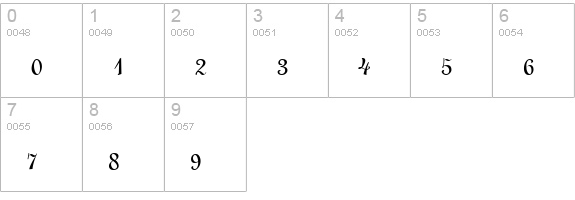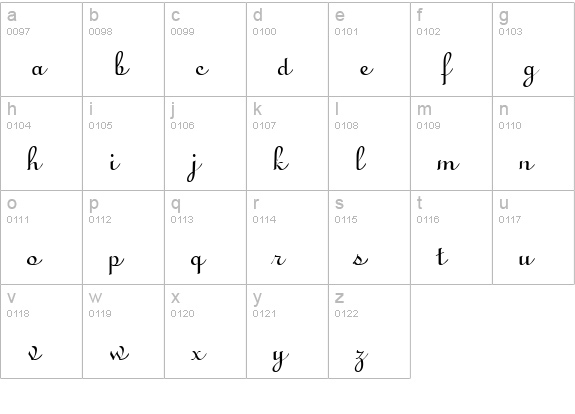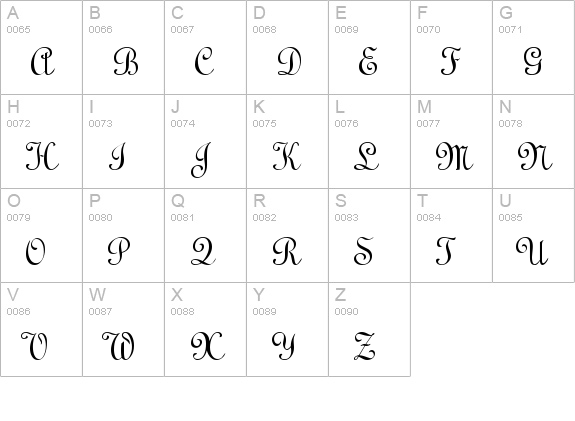
LinusScript Regular is the standard, neutral variant in the LinusScript typeface family \xE2\x80\x94 well suited to general body text, paragraphs, and standard typographic work.
LinusScript Regular font is a versatile and elegant typeface that exudes a sense of sophistication and creativity. Its fluid and dynamic strokes give a touch of personal charm to any design project. This font strikes the perfect balance between modernity and classic handwriting, making it suitable for a wide range of applications, from branding to invitations and everything in between. The best part is that LinusScript Regular font is completely free to download at FontsMarket.com. Whether you're a designer looking to add a unique touch to your creations or someone in need of a stylish font for personal use, this typeface is sure to impress with its timeless appeal and effortless beauty. Don't miss out on the opportunity to enhance your designs with this stunning font - download LinusScript Regular today and let your creativity shine!